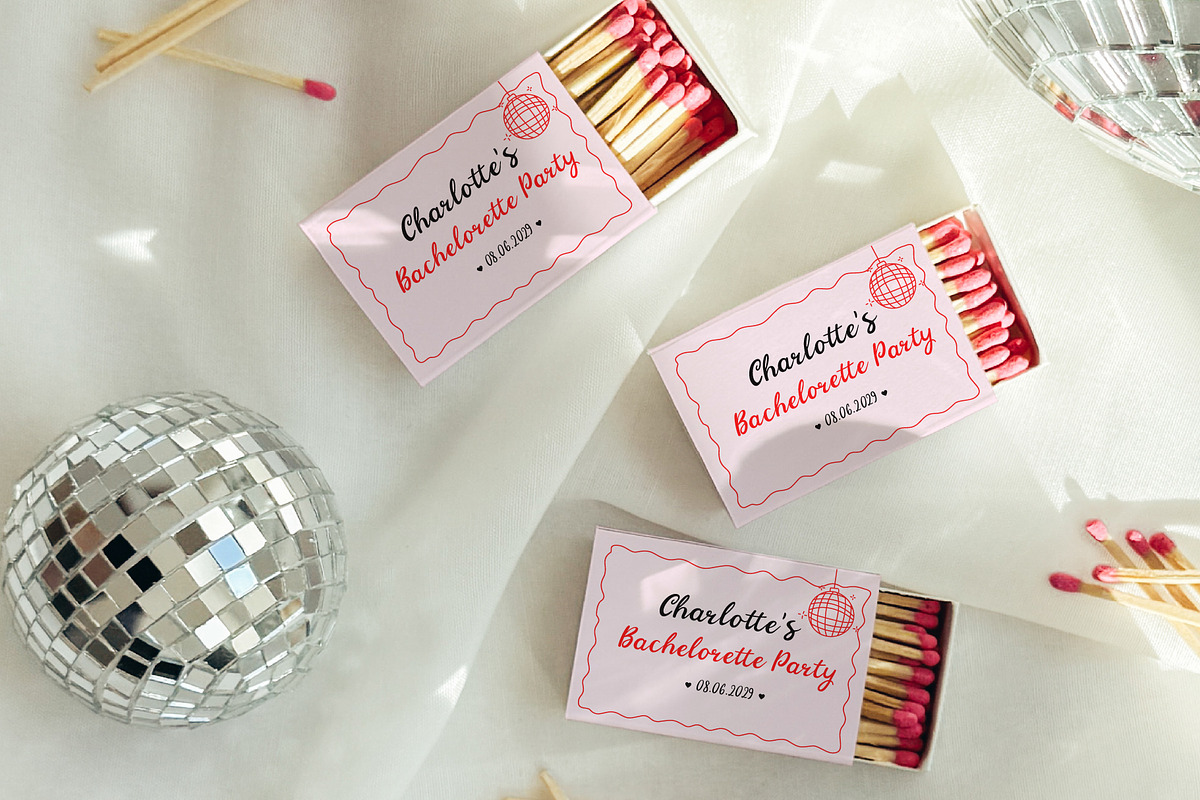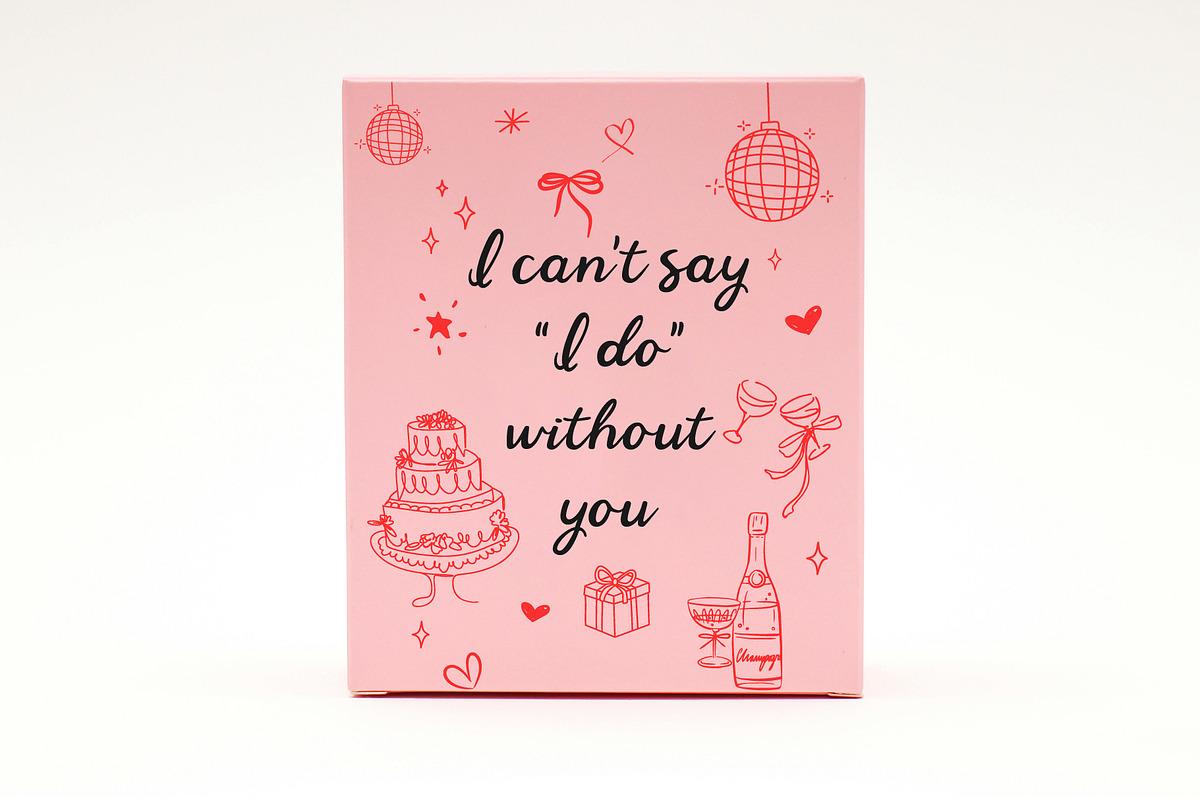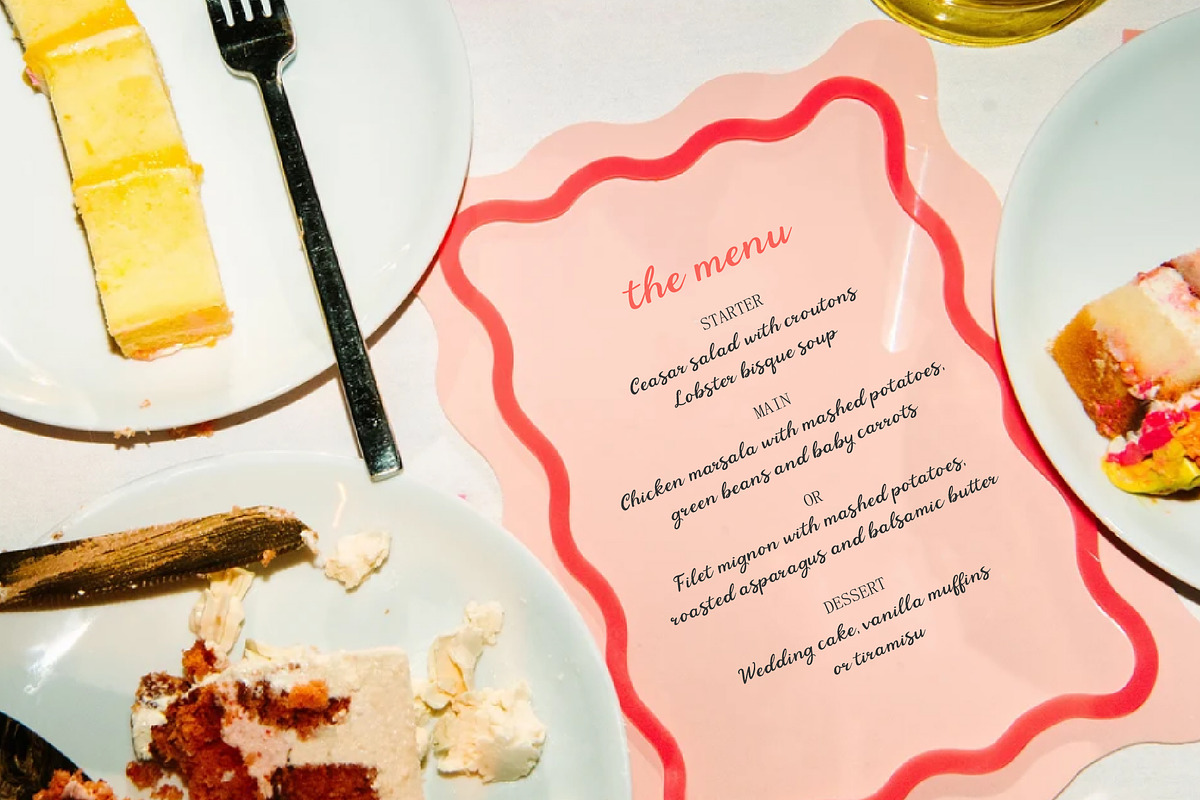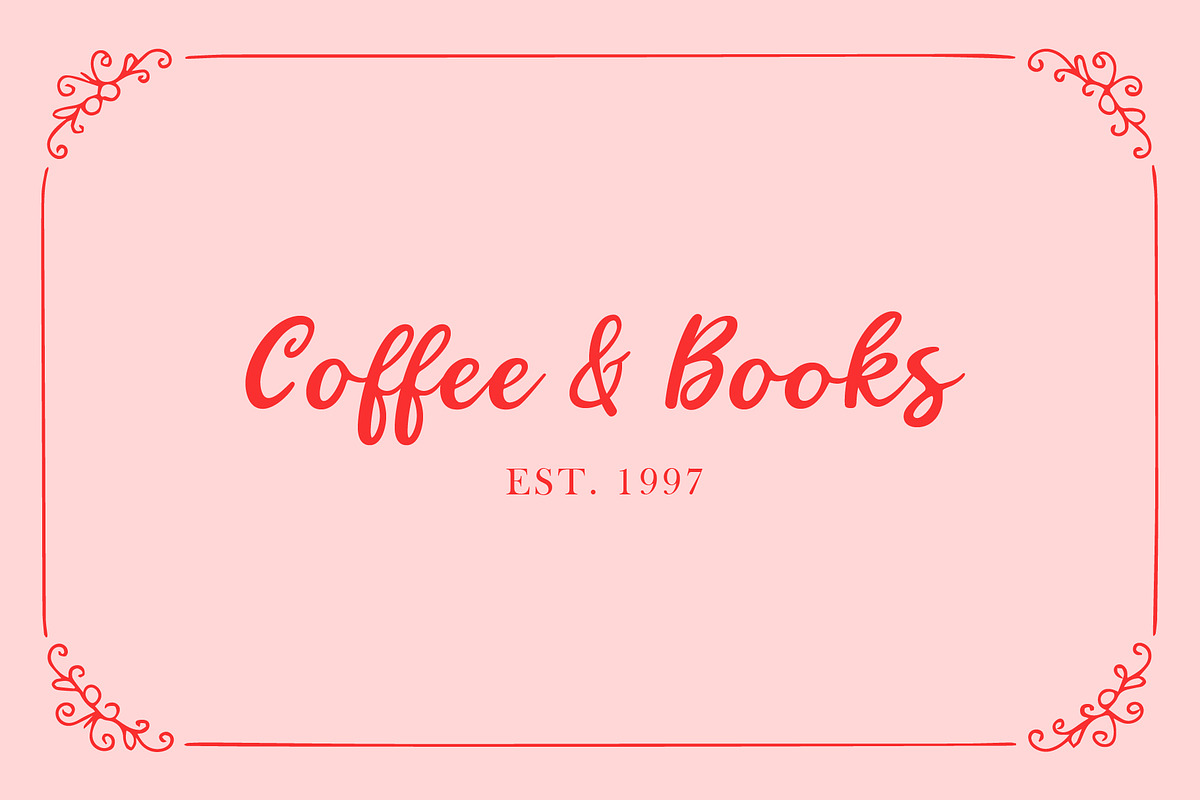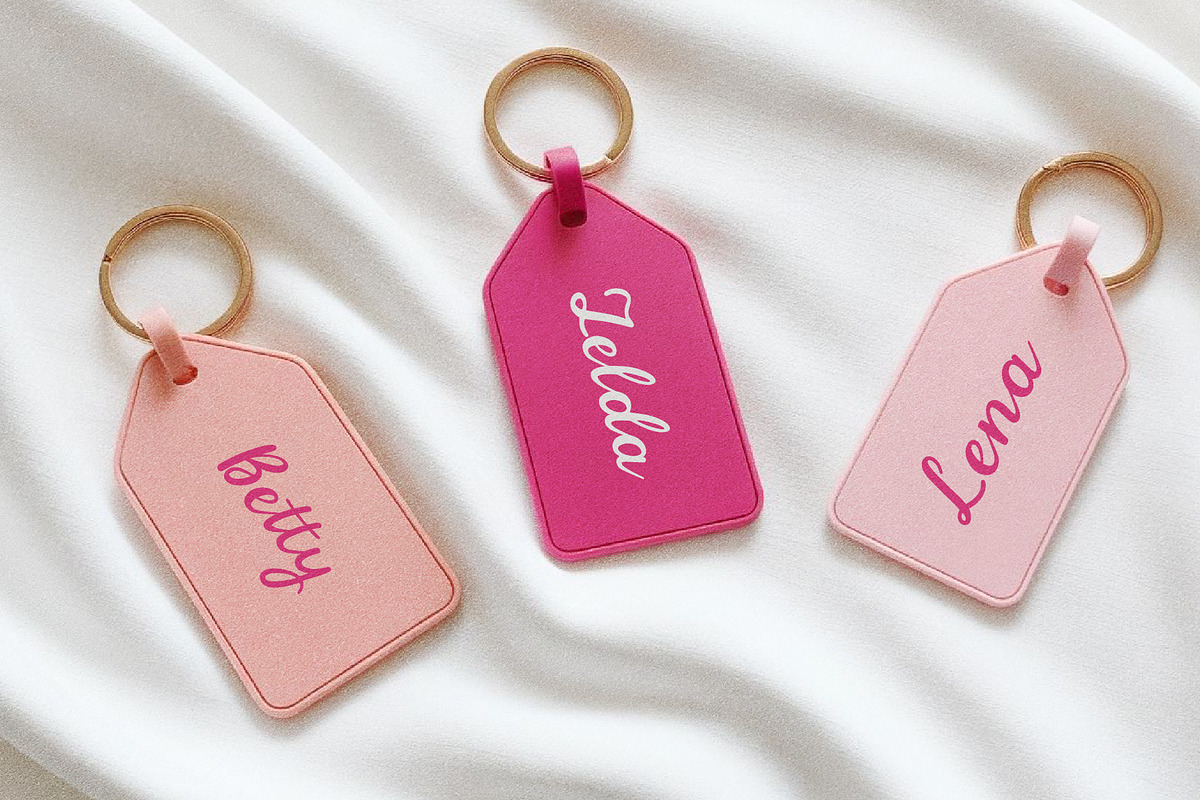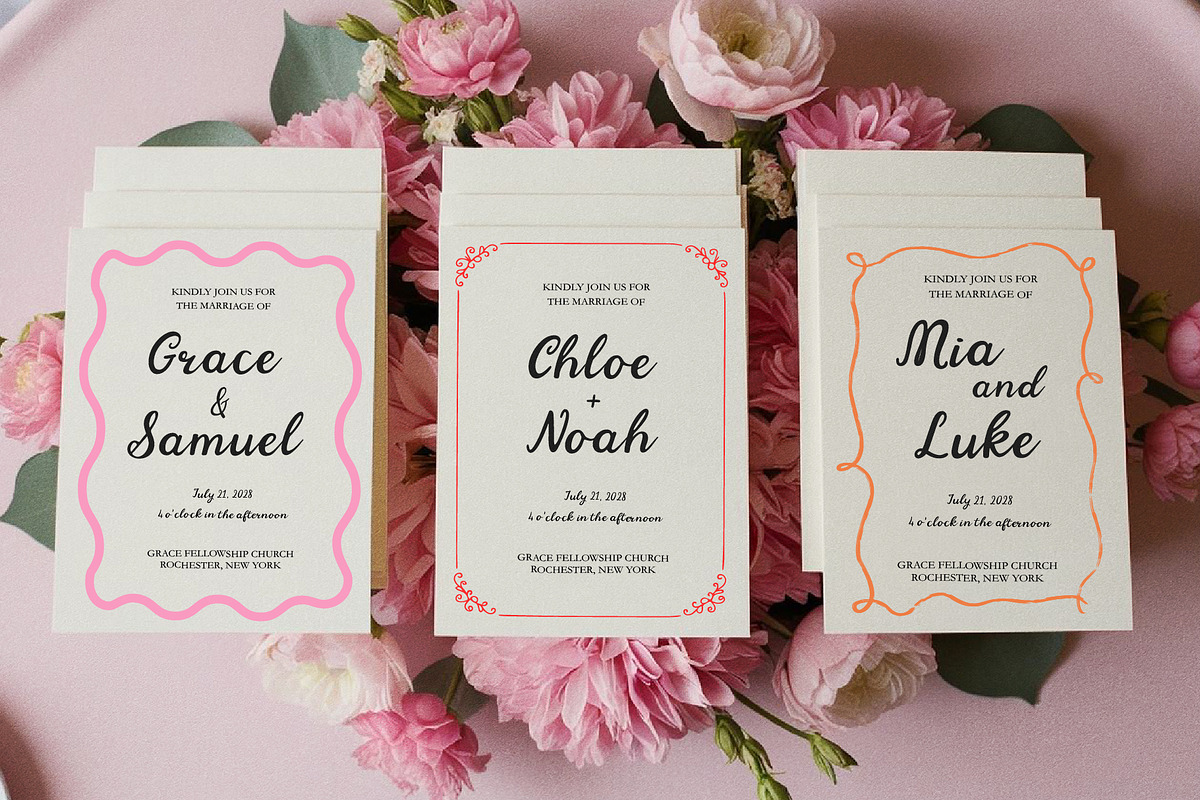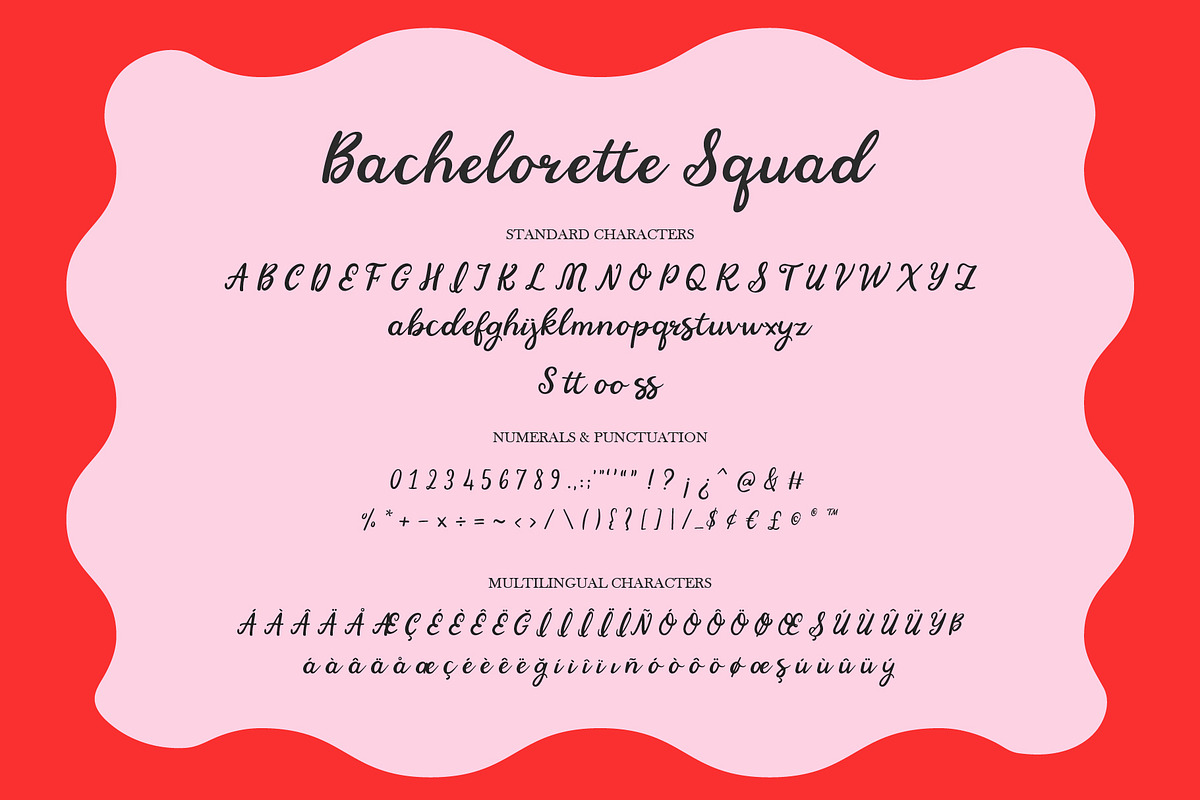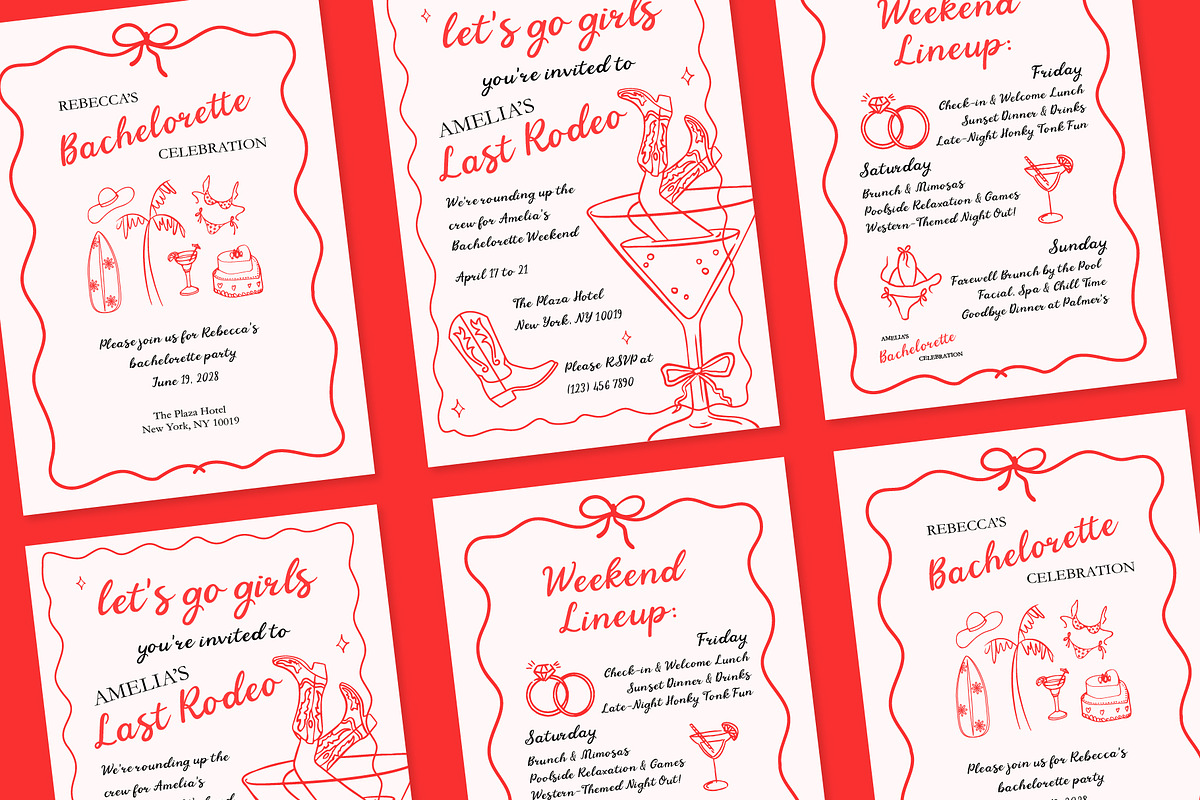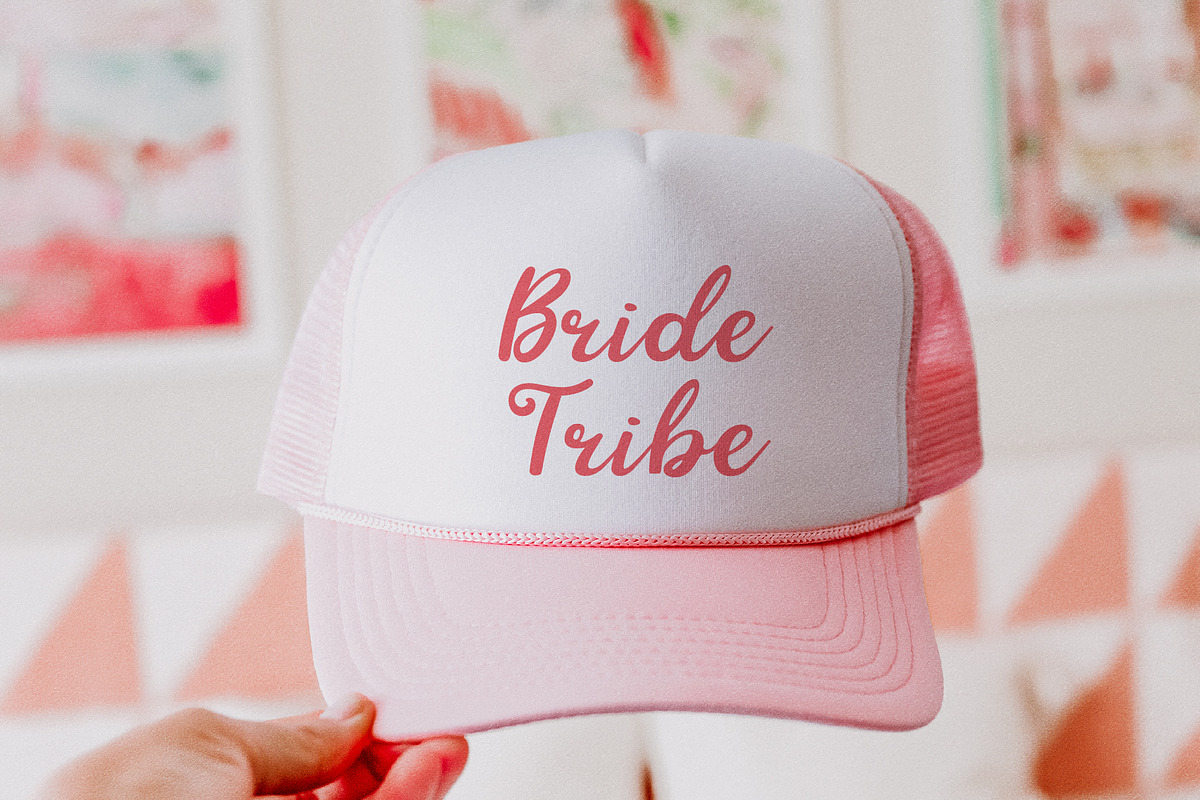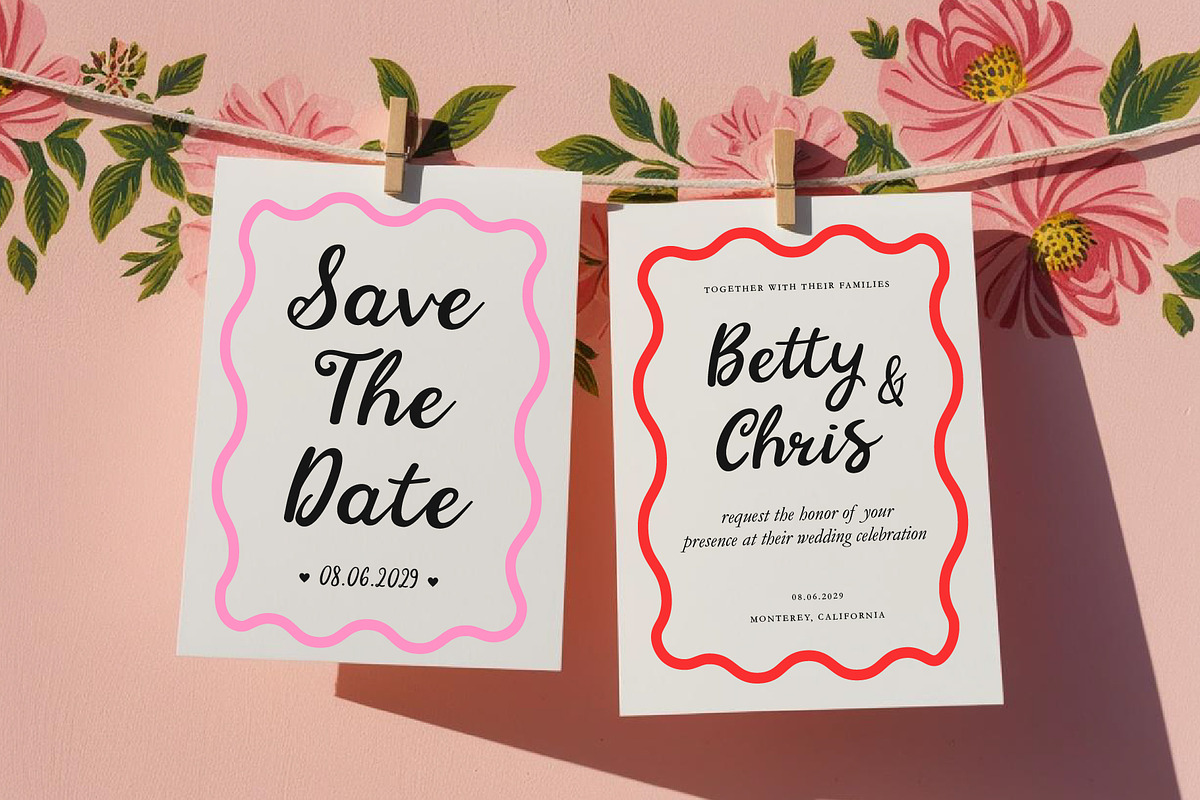
Bachelorette Squad - Wedding Script
Bachelorette Squad is a lovely script font; elegantly flowing, capturing the essence of love and celebration. With its whimsical charm and delightful tone, this font adds a touch of creativity and fun to your designs.
Supported Languages: Basque, Catalan, English, Finnish, French, Galician, German, Italian, Low German, Luxembourgish, Portuguese, Spanish, Swedish, Swiss German, Turkish